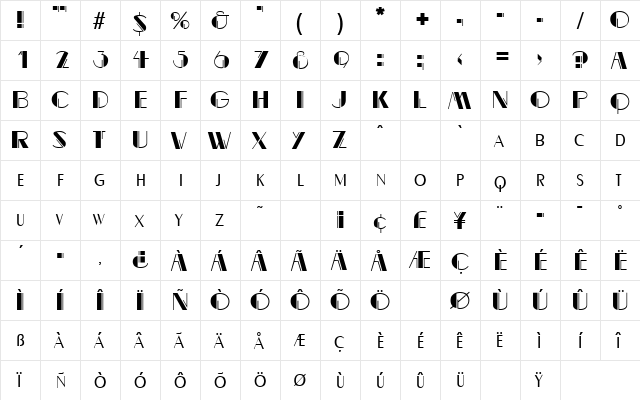
BealeVarigated Regular Font Preview
BealeVarigated Regular
Design Context for BealeVarigated Typeface
BealeVarigated is a composed and adaptable typeface that performs quietly and consistently across a wide range of design contexts.